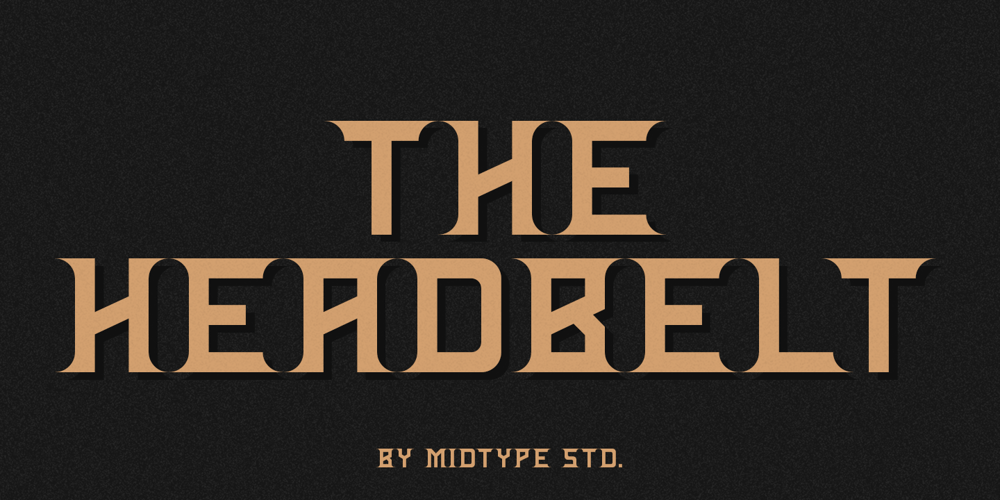
Headbelt Font Family was designed by Dwi Nur Hamida and published by Midtype. Headbelt contains 1 styles and family package options. Headbelt a Serif Display Font, Inspiring from strong style typography. This font is perfect for a design that makes it more attractive and playful. made with a very good level of aesthetics making this font suitable for book cover, poster, packging, merchandise, logotype and much more.